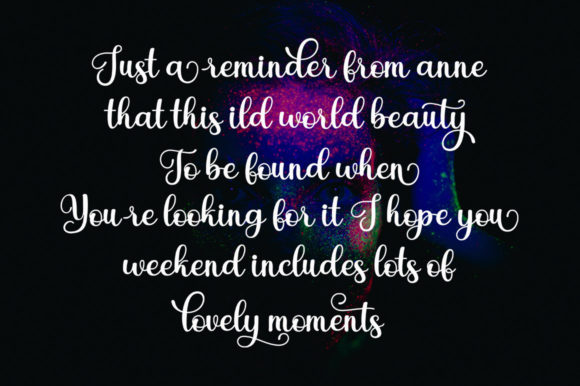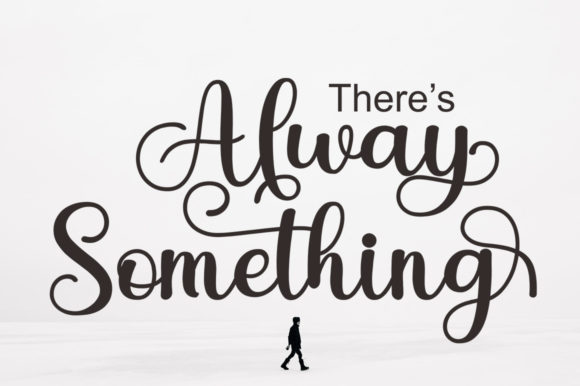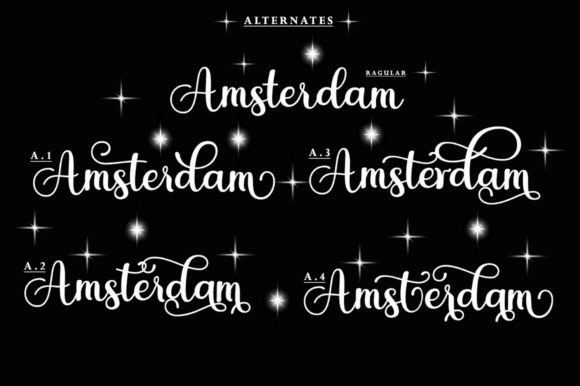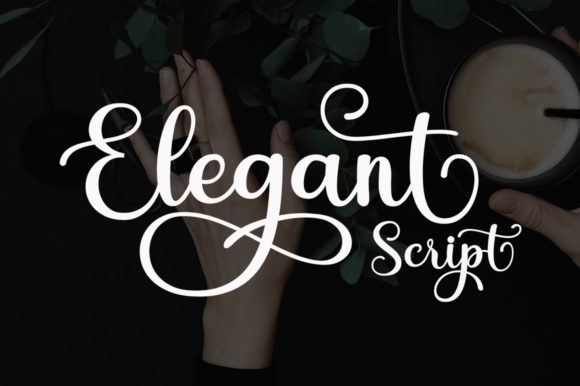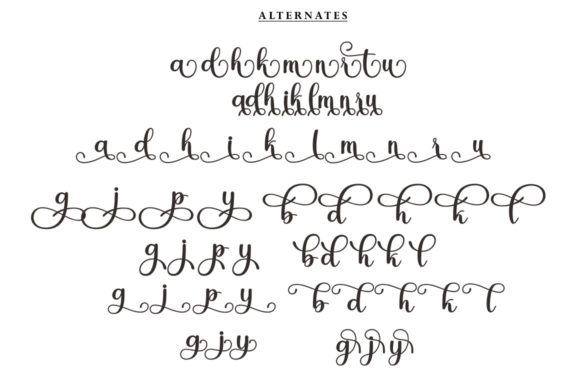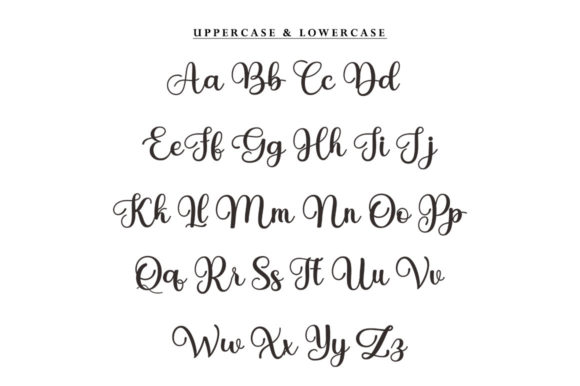
Introduction to Hey Calligraphy Font
Hey Calligraphy feels equally charming and elegant.
It looks lovely on wedding invitations, thank you cards, quotes, greeting cards, logos, business cards and every other design which needs a customized touch This font is PUA encoded which means you can access all of the glyphs and swashes with ease.
Key Features of Hey Calligraphy Font